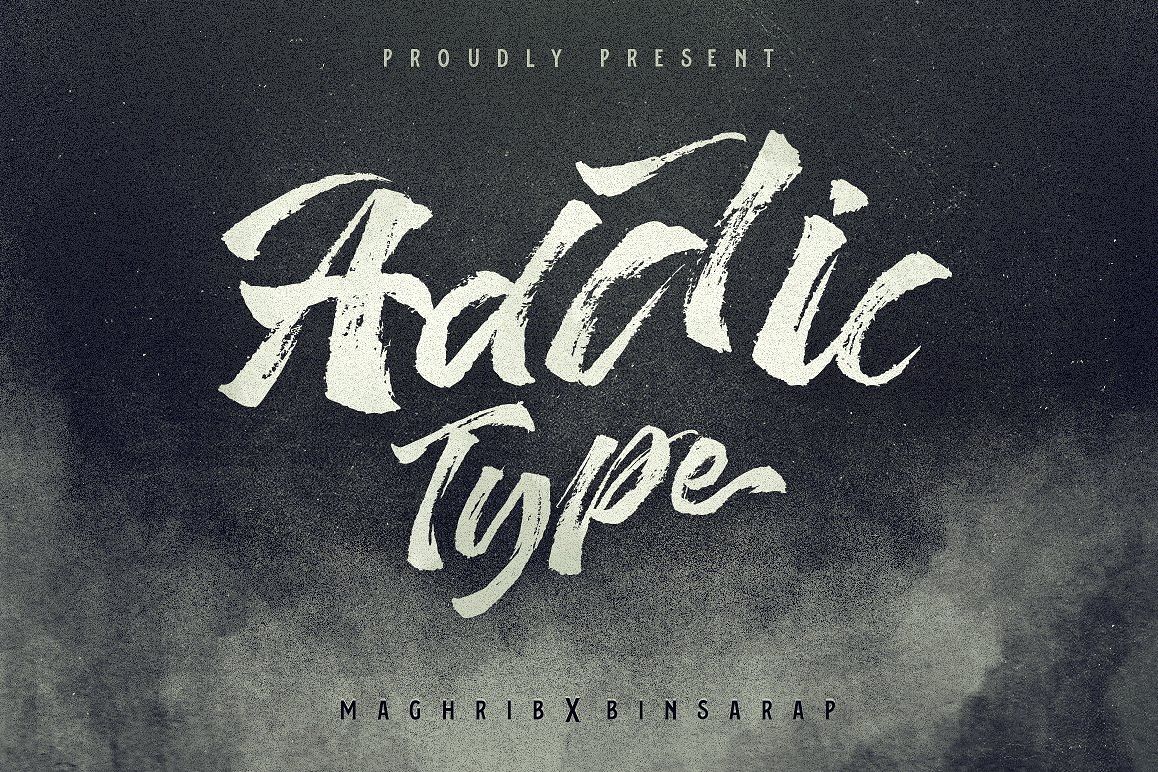
Addictype
Addictype is hand painted typeface designed to help you create the look of stunning custom hand-lettering.Addictype comes with upper and lowercase characters, punctuation, numerals, and Addictype is very best choice fonts for : ,quotes, Posters, Logos, Print Ads, Digital Ads, Promotion Product, video bumper, etc.Stylistic alternates,Ligatures,and contextual alternates, for key lower case characters are also available, accessible in the Adobe Illustrator Glyphs panel, or under Stylistic Alternates in the Adobe Photoshop OpenType menu.Thanks